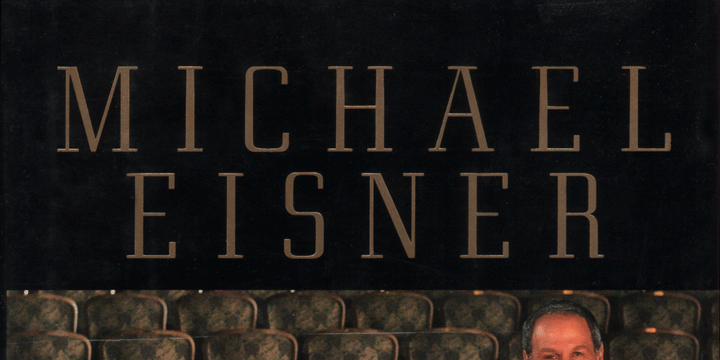
Eden Light
Eden Light, originally designed by the American type designer Robert H. Middleton in 1934, was commissioned by Publish magazine for a redesign in 1990. When I found a specimen of Eden Bold a couple years later, I decided to digitize it also. Subsequently, I created a Medium weight. Very squared and compact with thin slab serifs, Eden includes support of all European languages that use the Latin alphabet. Click on the Glyph Chart link at right to view all glyphs.
Eden is available in three weights: Light, Medium, Bold